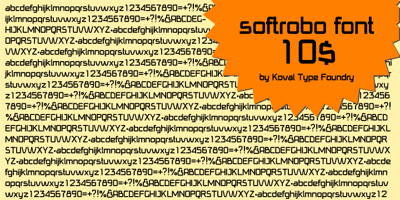
Softrobo Font Family was designed by Aliaksei Koval and published by Koval TF. Softrobo contains 1 styles and family package options. Fine-built, straight but not official, with soft corners is suitable for short texts, placards and advertising. It was inspired by 1970s when people were mad about robots, space and so on. I decided to create a font as if it was a progressive font of the 1970s.